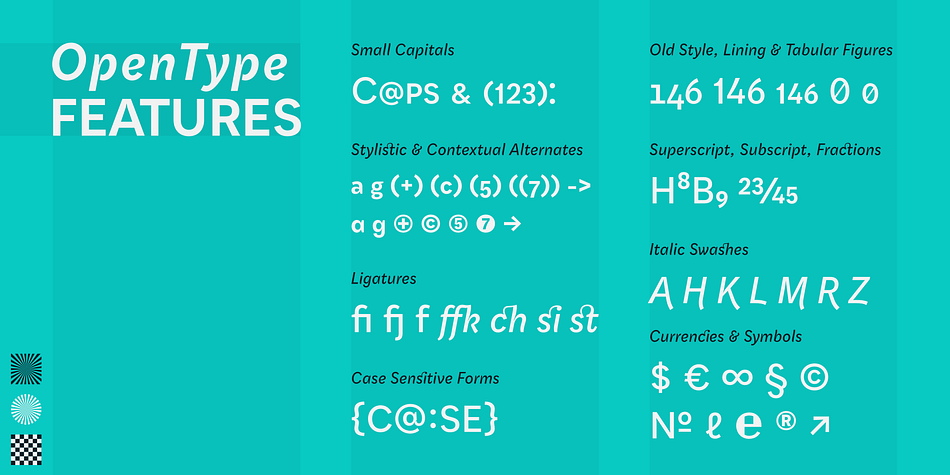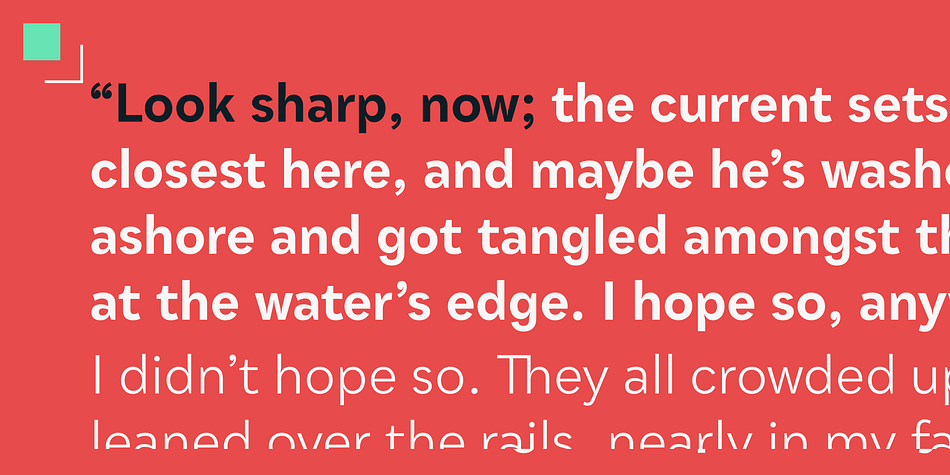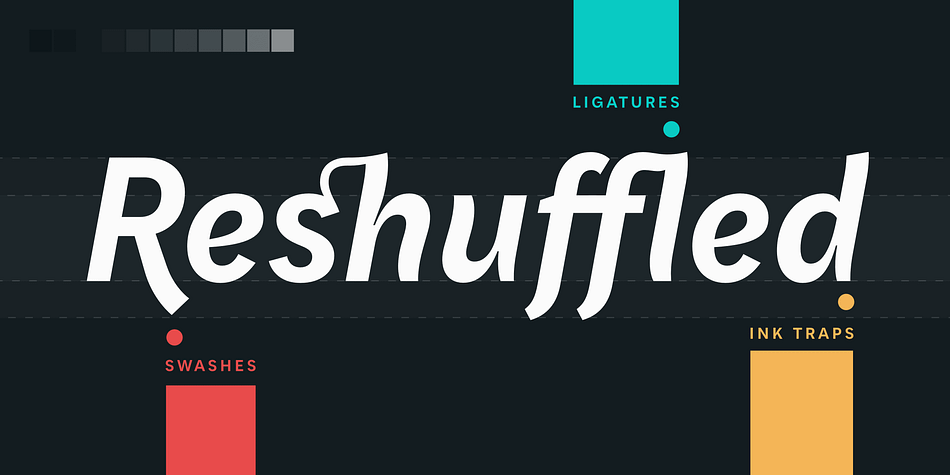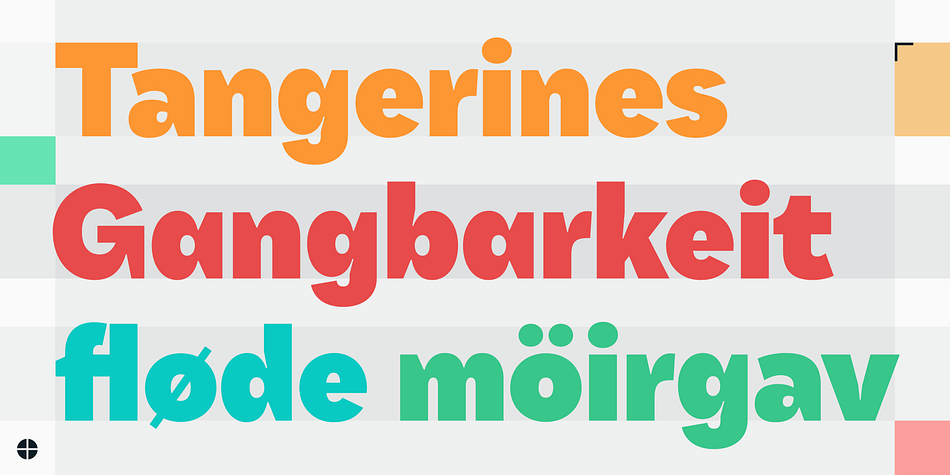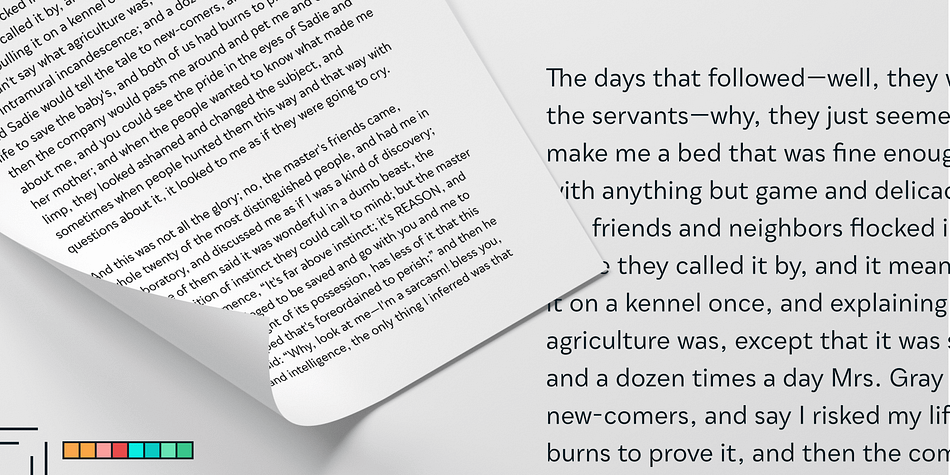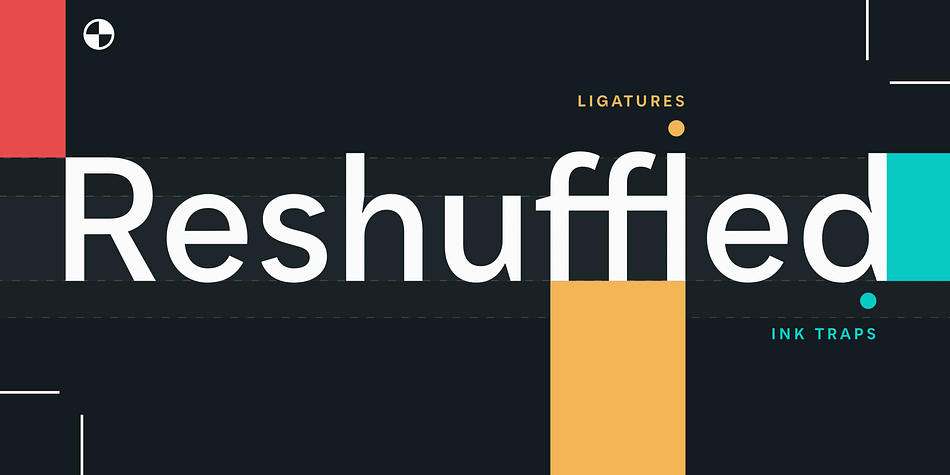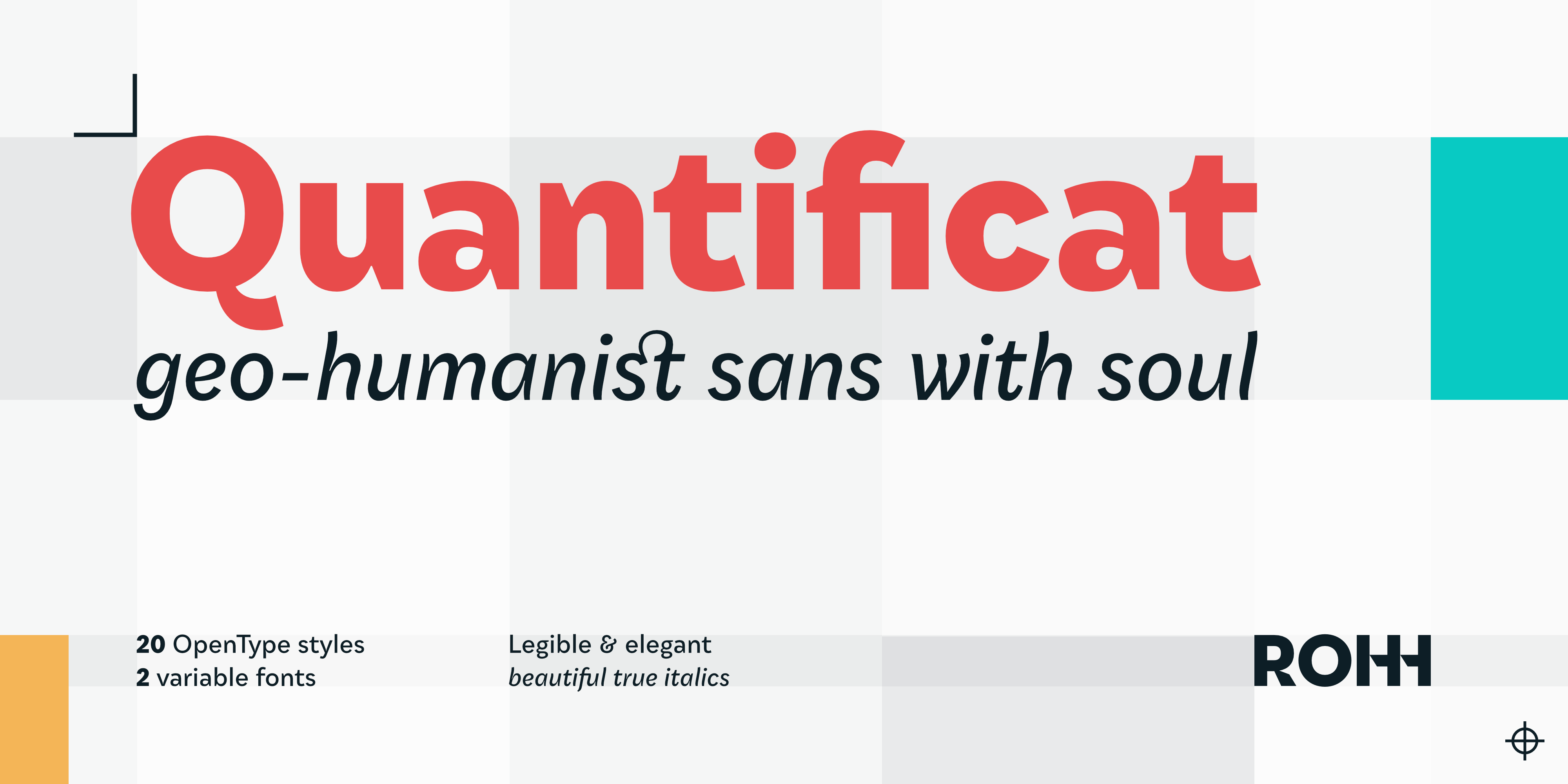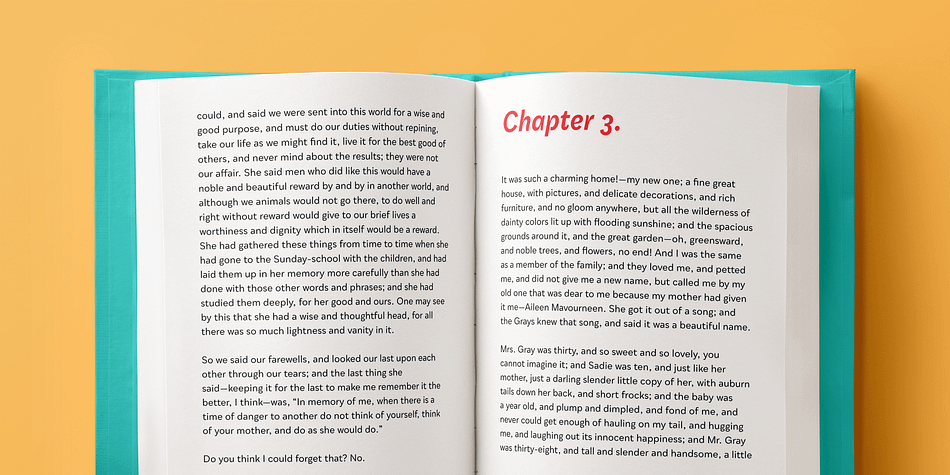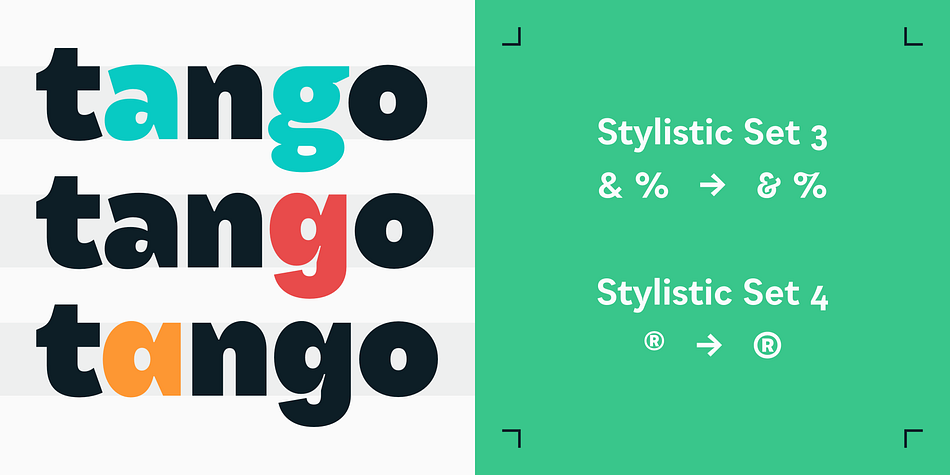
Quantificat
Designed by Roch Modrzejewski, Quantificat is a sans serif font family. This typeface has twenty-two styles and was published by ROHH.
Quantificat™ is a modern geo-humanist sans-serif typeface offering excellent legibility and strong personality. It is a fully featured text type family, well proportioned and uniform in color. It is designed to serve as a characterful display typeface, too, as it includes beautifully carved, flowing, calligraphy-inspired true italics, subtle, precise hairlines as well as modern, powerful and friendly heavy styles with emphasized ink traps.
Quantificat family introduces advanced typographic OpenType features, such as stylistic alternates, swashes, small capitals, case sensitive forms, standard and discretionary ligatures, contextual alternates, lining, old style, tabular and small cap figures, slashed zero, fractions, superscript and subscript, ordinals, currencies and symbols.
The complete family consists of 20 styles - 10 weights with corresponding true italics as well as 2 variable fonts. It supports extended latin languages.
Quantificat is a part of one type system together with Qualion, Qualion Round and Bozon.